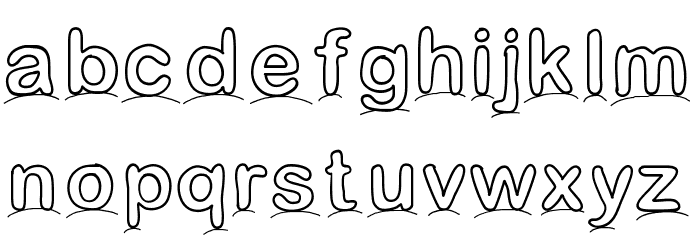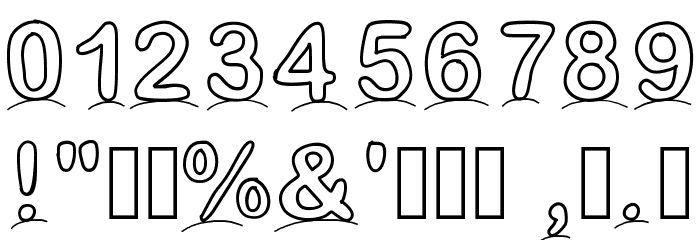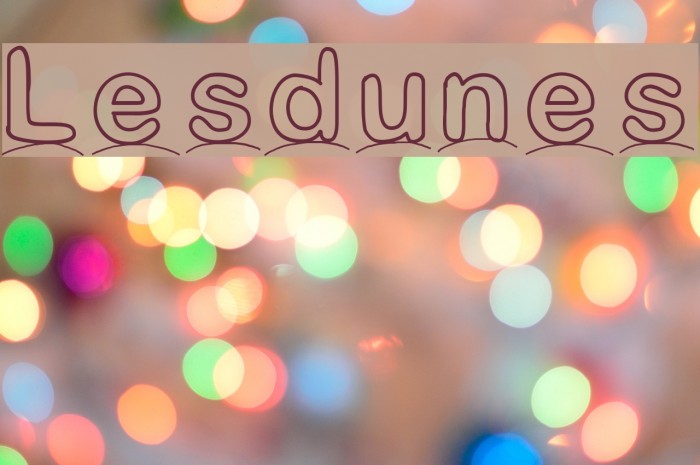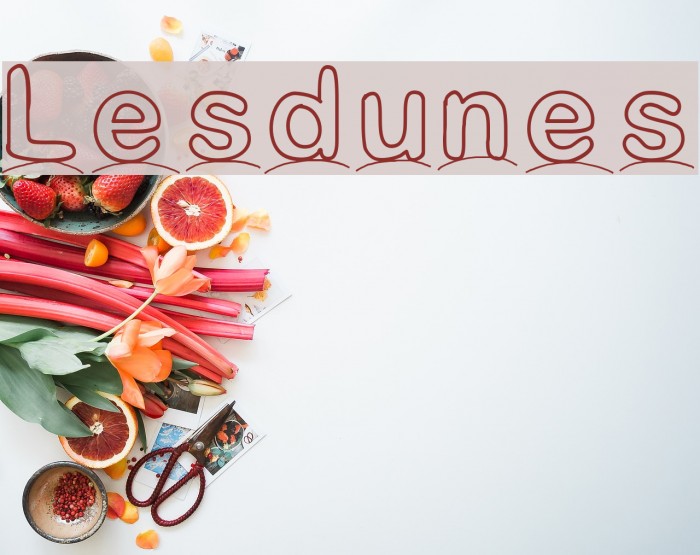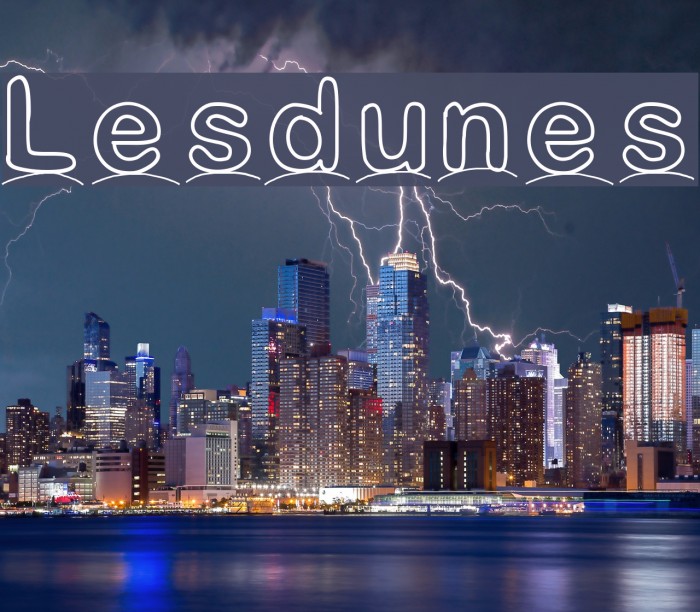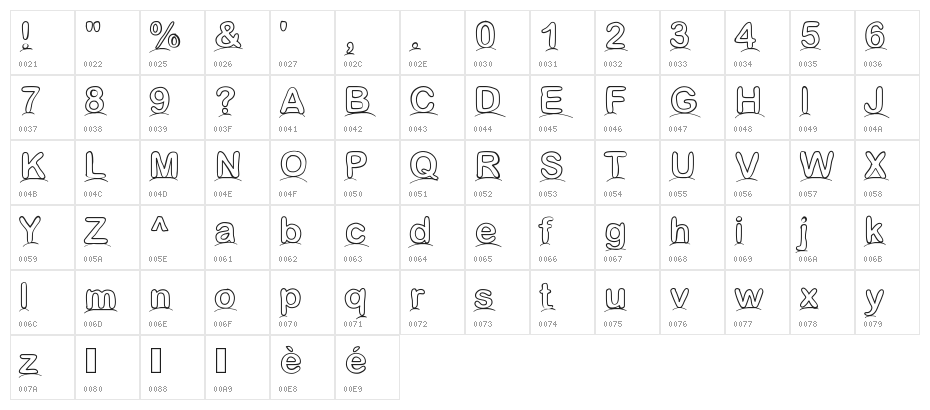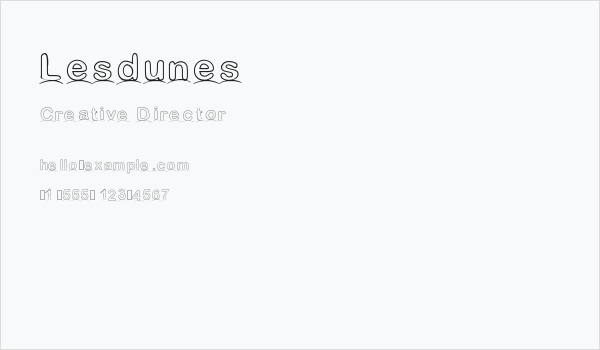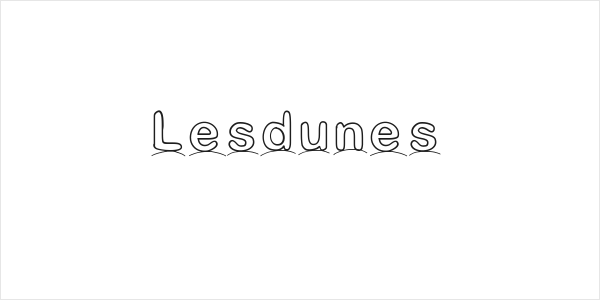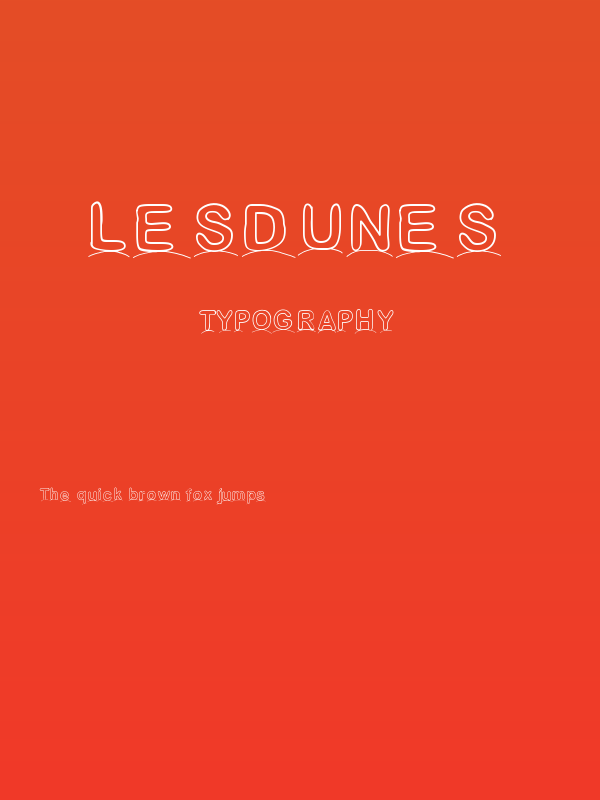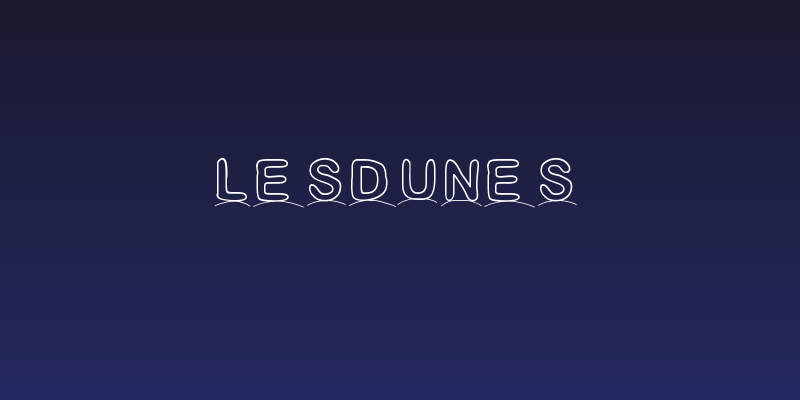
Lesdunes Font
This font features a playful and whimsical design with a unique outline style. Each character is crafted with a distinct bubble-like contour, giving it a fun and approachable appearance. The uppercase and lowercase letters maintain a consistent style, with rounded edges and a uniform thickness throughout. The numbers and special characters follow the same design principles, ensuring a cohesive look. This font is perfect for projects that require a lighthearted and informal touch, such as children's books, playful branding, or creative posters.
A playful, outline-style font with bubble-like contours and rounded edges.
- Proposed Projects: Ideal for children's books, playful branding, creative posters, and informal designs.
- Overall Style: Playful